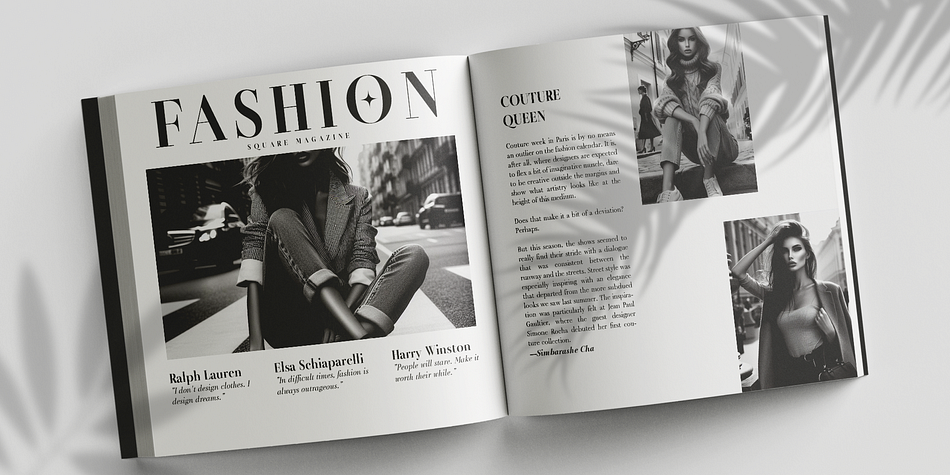
Chic Style
Designed by Faldy Kudo, Chic Style is a serif font family. This typeface has four styles and was published by xdCreative.
Introducing Chic Style, an evolution of the font ‘Cornelia’ by Faldy Kudo released in 2018.
Chic Style is “The Rational Serif” font presents a harmonious blend of two different styles within a single typeface, seamlessly merging Transitional and Modern Serif designs. With its versatile offerings, this font family boasts regular, bold, and italic styles across two distinct style families.
From sleek and sophisticated to bold and expressive, “Chic Style: The Rational Serif” delivers a timeless typographic solution for a wide range of design projects, embodying elegance and precision in every character.
It will be very easy to switch the style from rational to modern. You just need to open the OpenType feature and activate the stylistic sets menu in your design App.